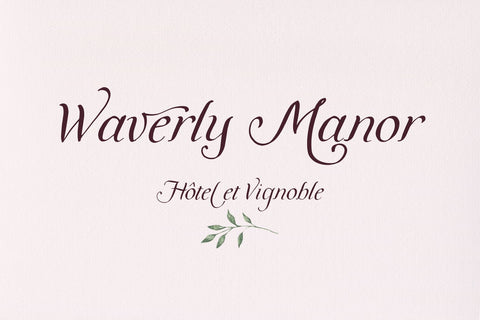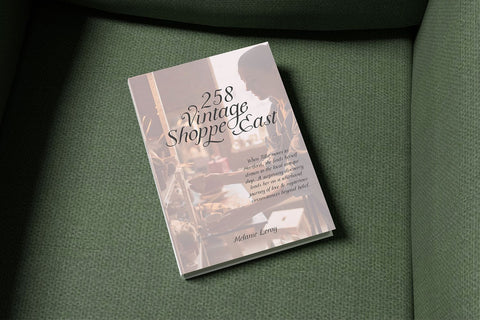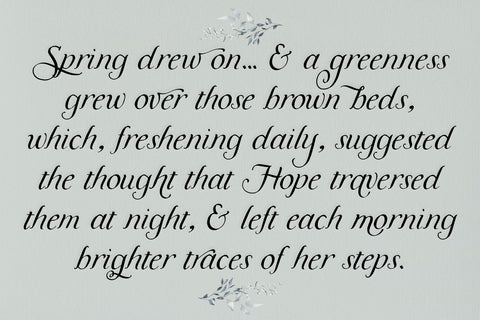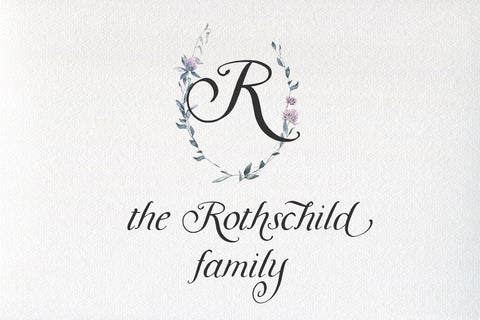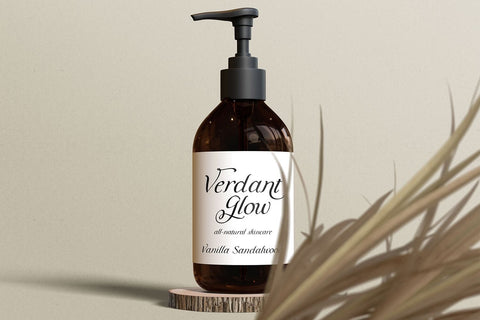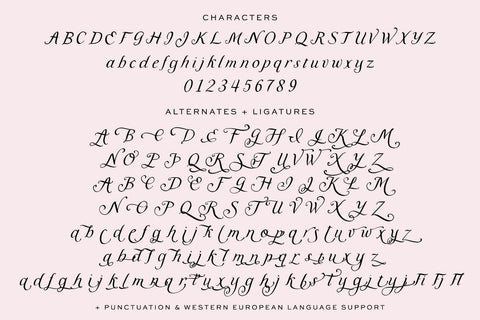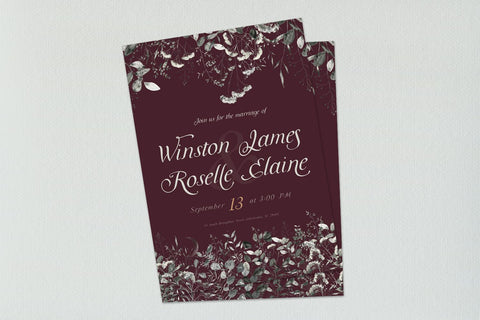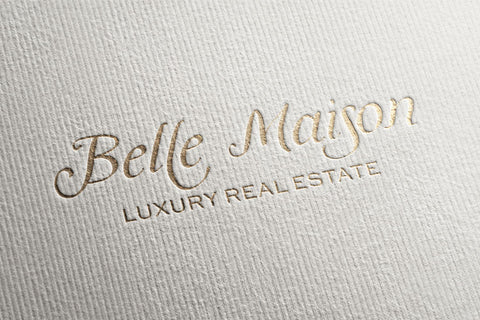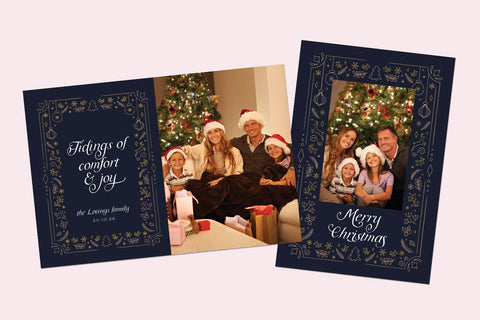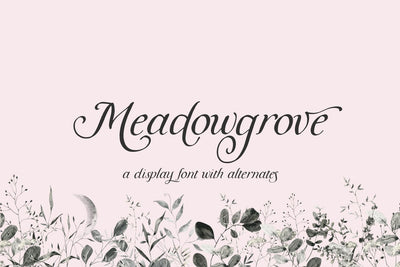
Meadowgrove Calligraphy Display Font
Meet Meadowgrove, an elegant hand lettered display font with an inky, perfectly imperfect edge.
Meadowgrove is a legible calligraphy font packed full of alternate characters to customize your text easily. Effortlessly design logos & branding, beautiful paper products like wedding invitation suites, or for display content on your website. Meadowgrove can also be used for other print design like magazines and flyers, book covers, or printed marketing materials. This font can also be used for digital marketing materials and social media items!
Meadowgrove includes:
- full upper + lowercase characters
- numbers + punctuation
- 54 alternate uppercase characters
- 80 alternate lowercase characters
- 3 ligatures - Fi, Fj, Fl
- Western European language support - English, French, Spanish, Portuguese (Brazil), Portuguese (Portugal), Italian, German (Germany), German (Austria), Dutch, Danish, Swedish, Norwegian (Bokmål and Nynorsk), Finnish, Icelandic, Irish, Welsh